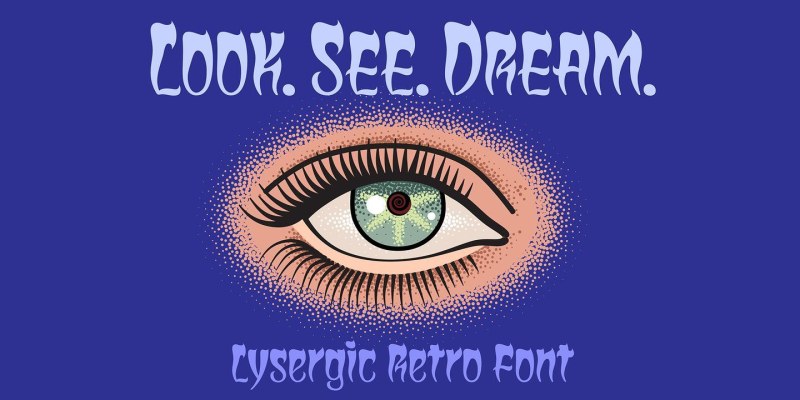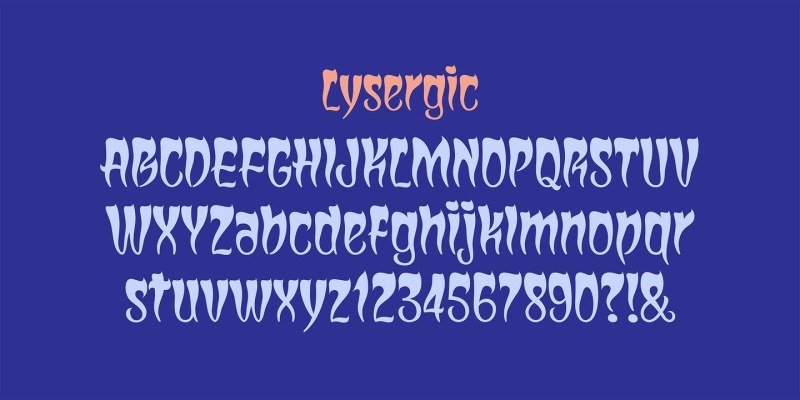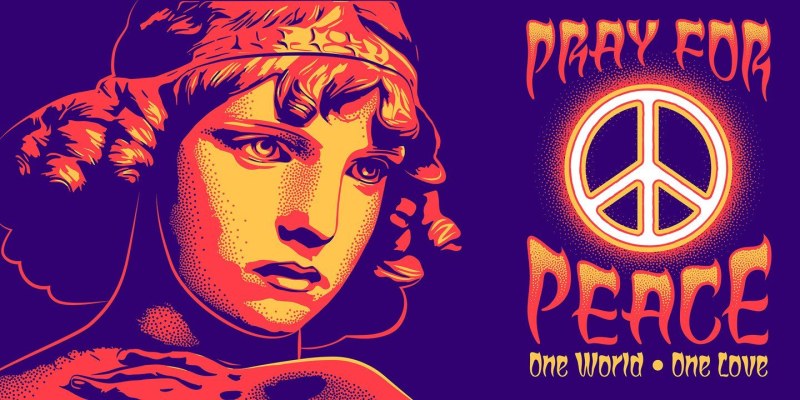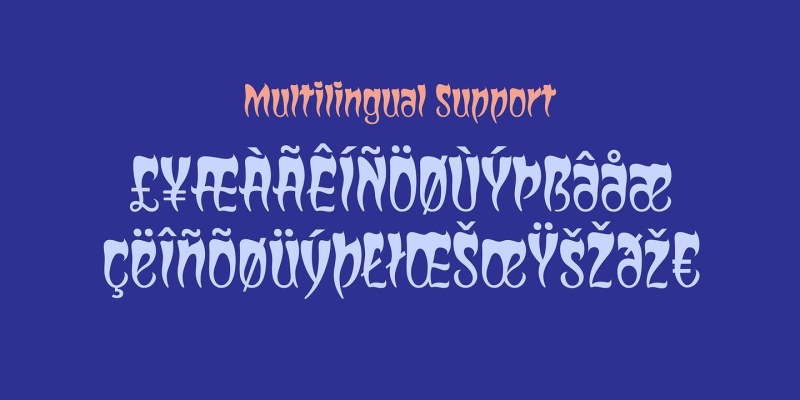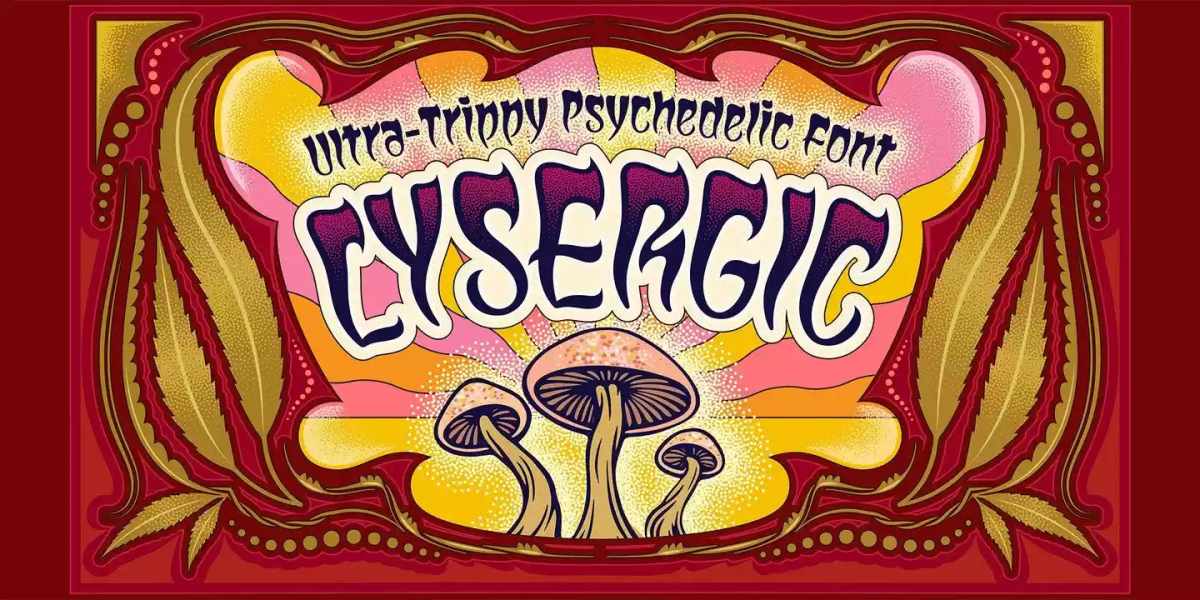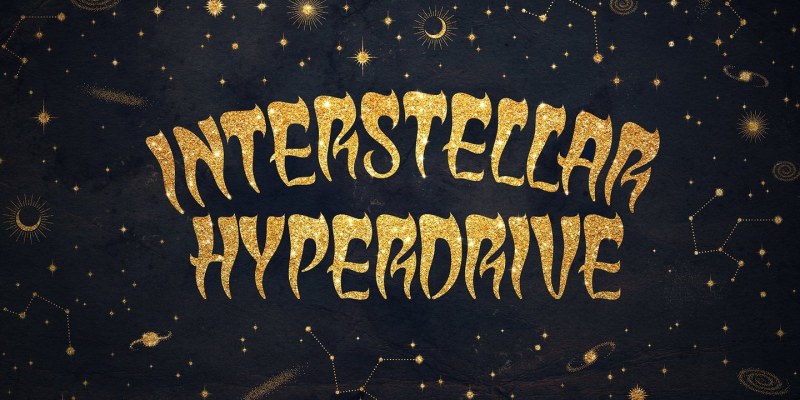
Lysergic Font
Lysergic is a smoky, swirly, super-psychedelic font that exudes 1960s vibes. This font is a tribute to the work of San Francisco artist Rick Griffin, famous for his psyc…
Lysergic is a smoky, swirly, super-psychedelic font that exudes 1960s vibes. This font is a tribute to the work of San Francisco artist Rick Griffin, famous for his psychedelic posters, creative lettering ideas, and especially his Grateful Dead album cover art. Griffin was a master of ink stippling and that particular drawing technique proves to be a great way to embellish this style of lettering. Set your time machine to 1969 and fire up your grooviest designs with Lysergic.
Where Lysergic Font works best
Lysergic Font is built for size: event posters, hero headlines and billboard-style layouts.
High contrast display type like Lysergic Font reads instantly in thumbnails and motion graphics.
What is Lysergic Font good for?